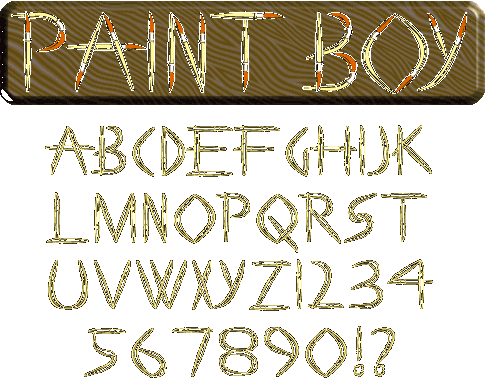
Are you an artist? Do you know an artist? Is that artist a painter? Huh? Are you still with me? Does that artist need a font made out of paintbrushes? Hmm. I guess nobody actually needs a font made out of paintbrushes.
Maybe you can find another use for it like typing out business letters or something.